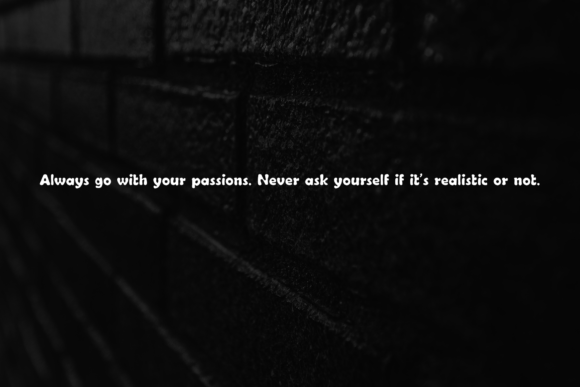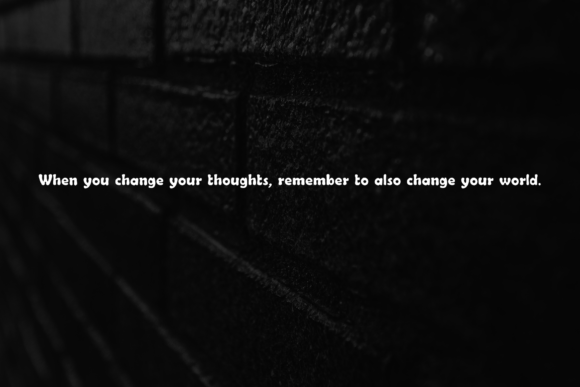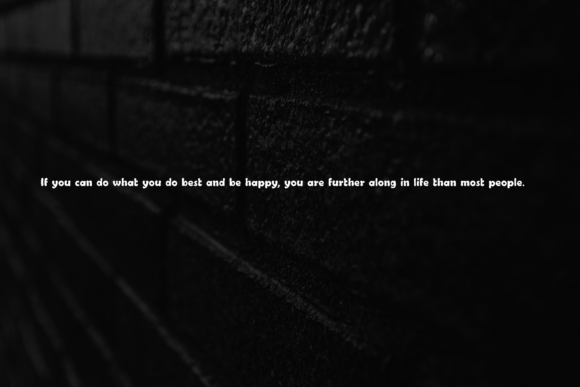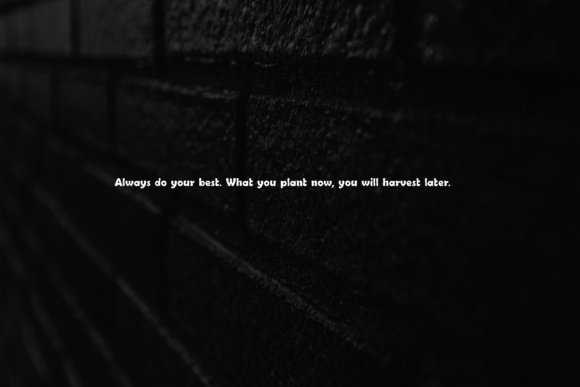
Designing for a Spooky-Chic Vibe: The Goberry Font Takes Center Stage
Do you remember that magical moment when you stumbled upon the perfect font for your next design project? For me, it was the thrill of discovering the Goberry Font, a Sans Serif masterpiece that screams Halloween spirit. As I gazed at its playful, casual design, I knew I had to learn more about this hidden gem.
So, what’s the story behind Goberry Font? This delightful font is inspired by the iconic Halloween pumpkins and is perfect for any musical-themed or jazzy design. Its clear, modern design makes it a valuable asset for designers looking to add a touch of whimsy to their projects.
Goberry Font Key Features
- Font Family: Goberry is a unique, hand-drawn font that combines elements of script and sans-serif typography.
- Size: The font family includes 6 weights (Thin, Light, Regular, Medium, Bold, and Black) for versatility in design.
- Unique Characteristics: Features a distinctive, cursive-like feel with a mix of rounded and pointed letterforms, making it perfect for creative and artistic applications.
Goberry Font Review
As a designer, I was excited to dive into the Goberry font and see what it had to offer. Here’s my honest review.
- Unique Character: The Goberry font has a distinct, quirky feel that sets it apart from more traditional fonts.
- Good Legibility: Despite its playful appearance, the font is still easy to read, even at smaller sizes.
- Flexibility: Goberry comes in a range of weights and styles, making it suitable for a variety of design projects.
- Limited Versatility: While Goberry is great for playful or creative projects, it may not be the best choice for more formal or professional designs.
- May Not Suit All Text Types: The font’s unique character may make it difficult to use for large blocks of text or for text that requires a more traditional feel.
- Some Characters May Require Adjustments: I found that some characters, such as the uppercase “I”, may require slight adjustments to maintain the font’s unique feel.
Overall, I think the Goberry font is a great addition to any designer’s toolkit, particularly for projects that require a playful or creative touch. However, it may not be the best choice for every design project.
The Goberry font is a great choice for titles, headings, and body text in creative and modern designs. It’s also suitable for logos, branding materials, and social media graphics.
For best results, use the Goberry font in conjunction with a clean and minimalist design aesthetic.